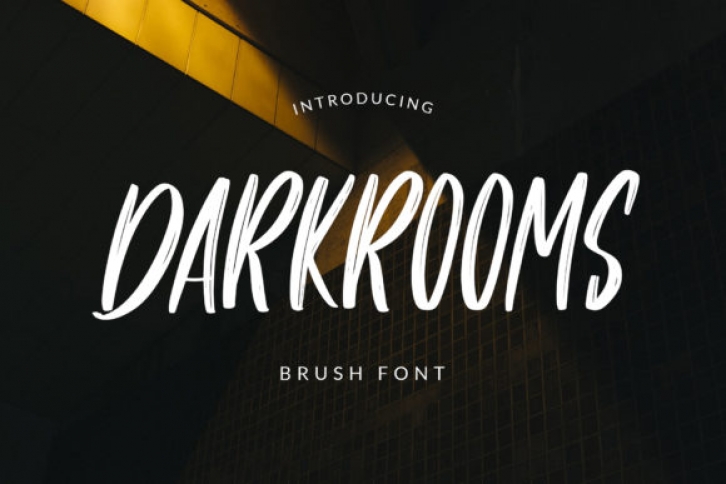
Darkrooms is a neat, urban styled and daring brushed display font. This original look will appeal to a wide range of crafty ideas, from letterheads and titles, to stationery.